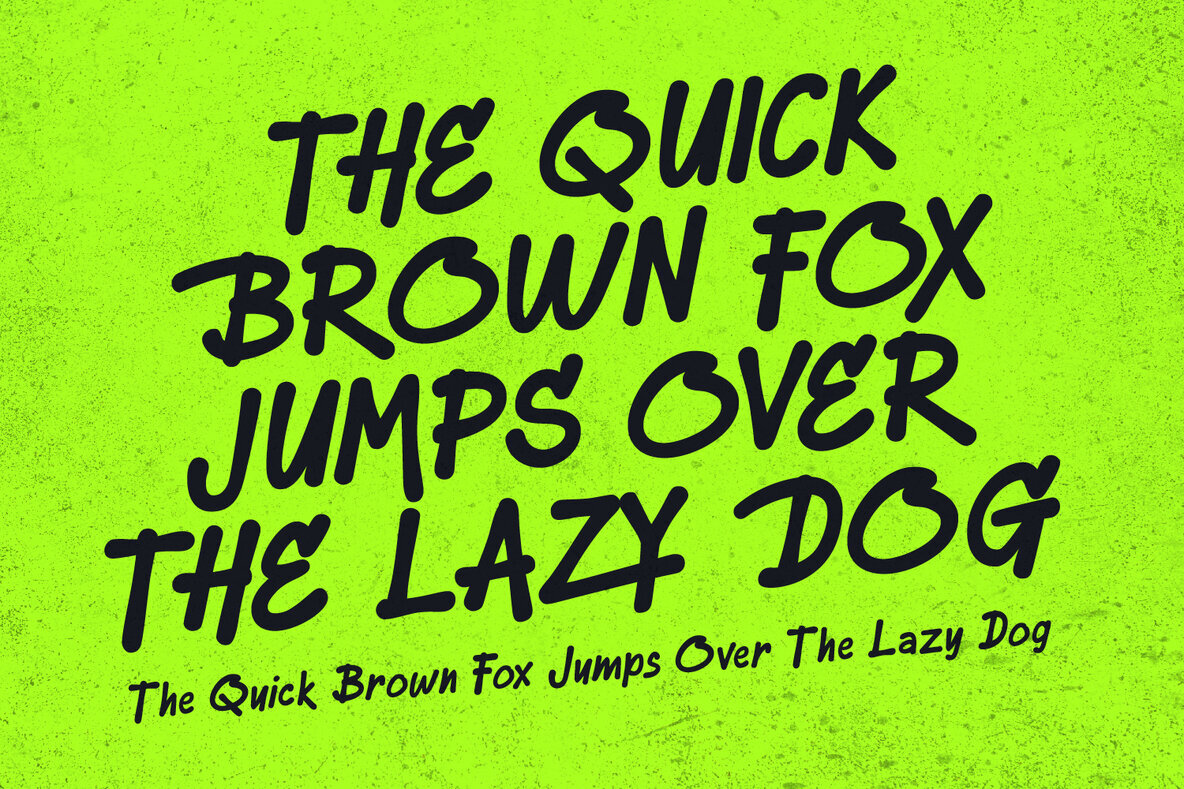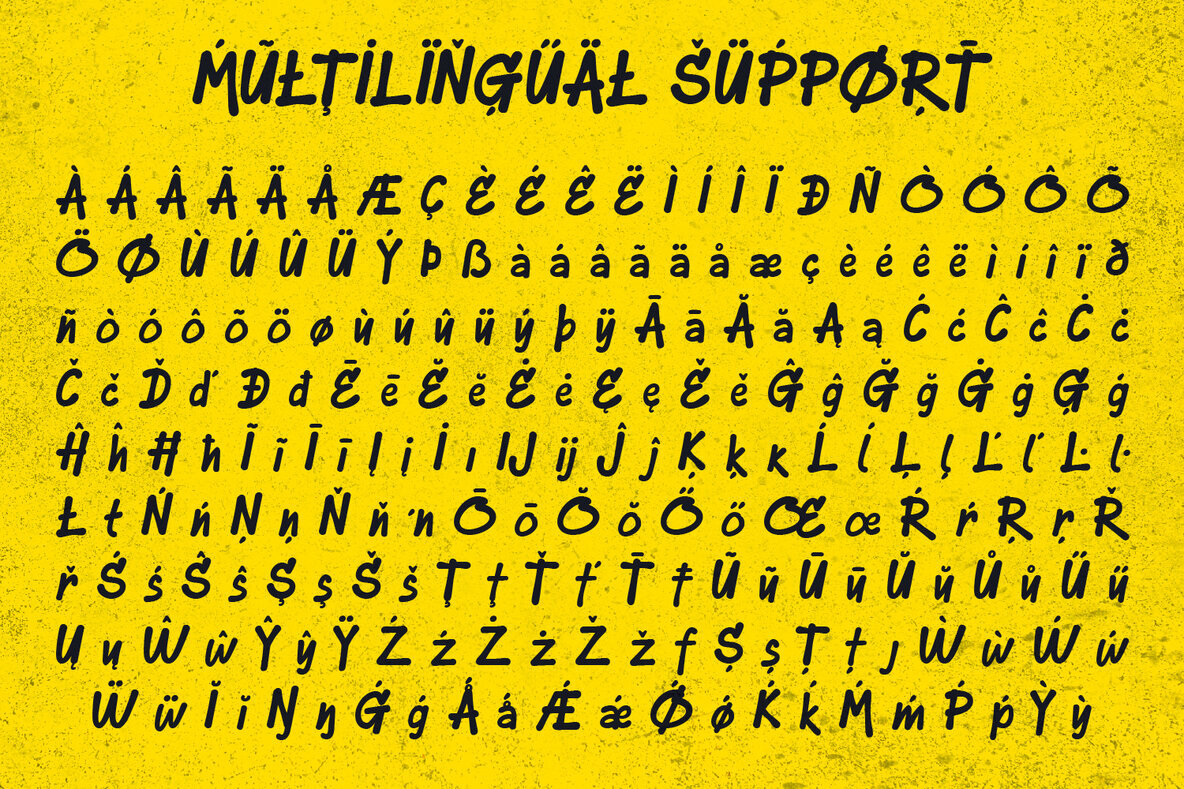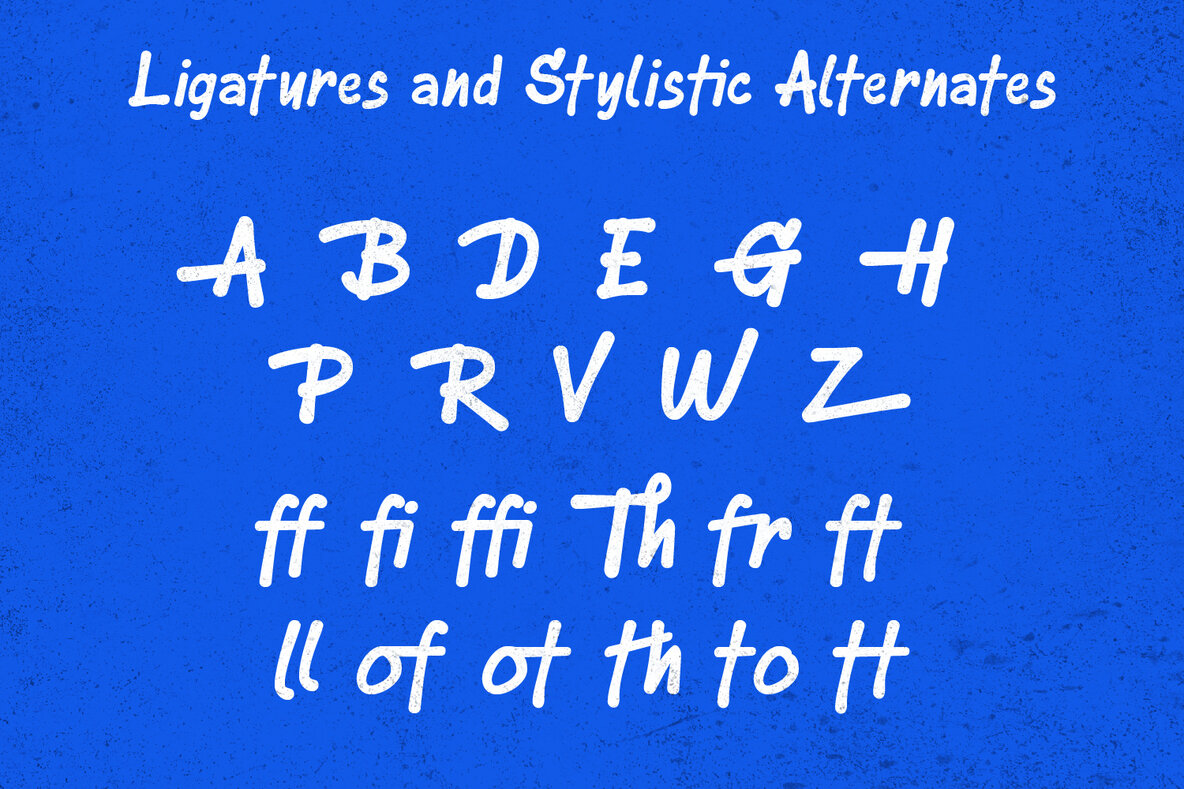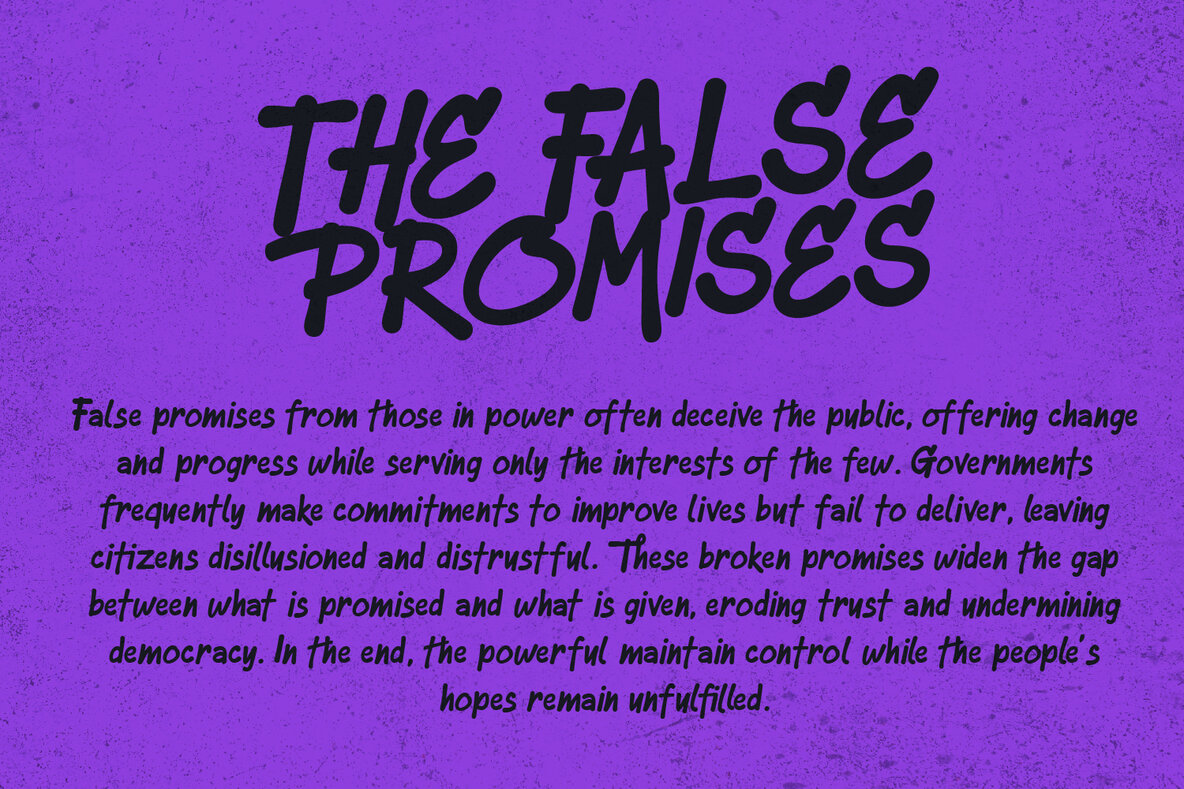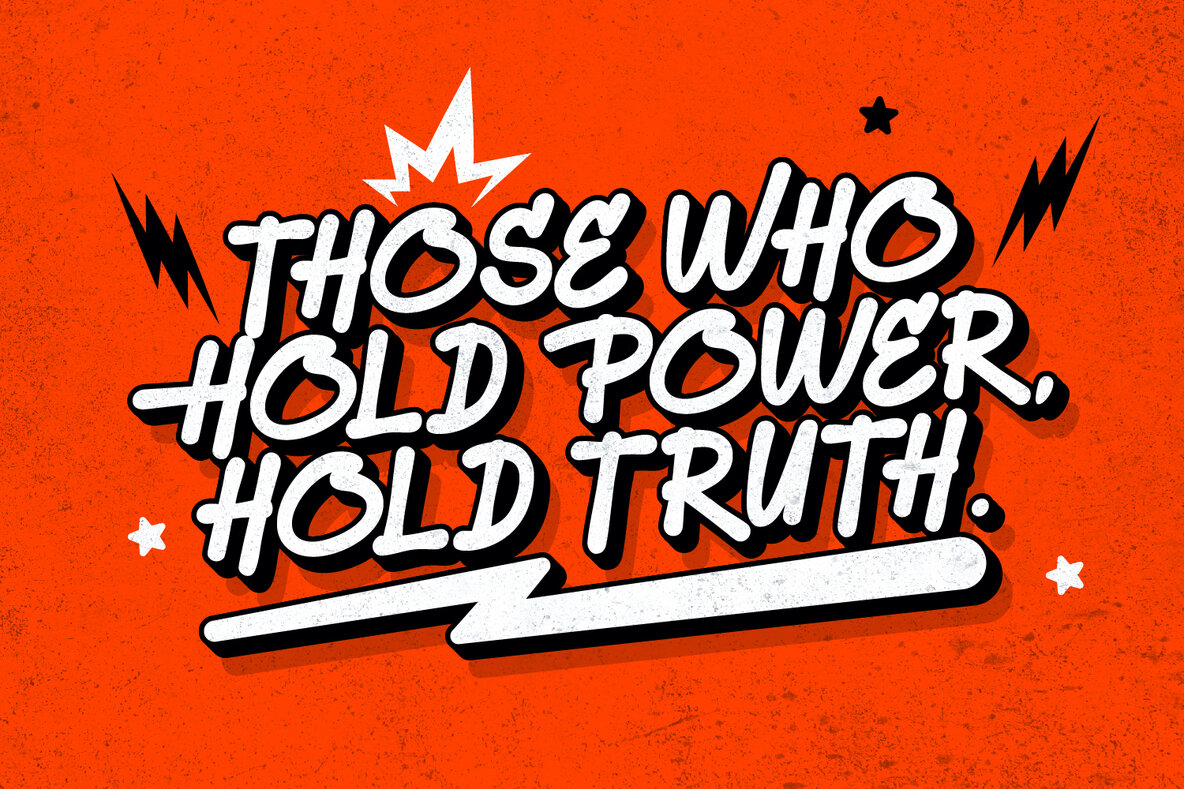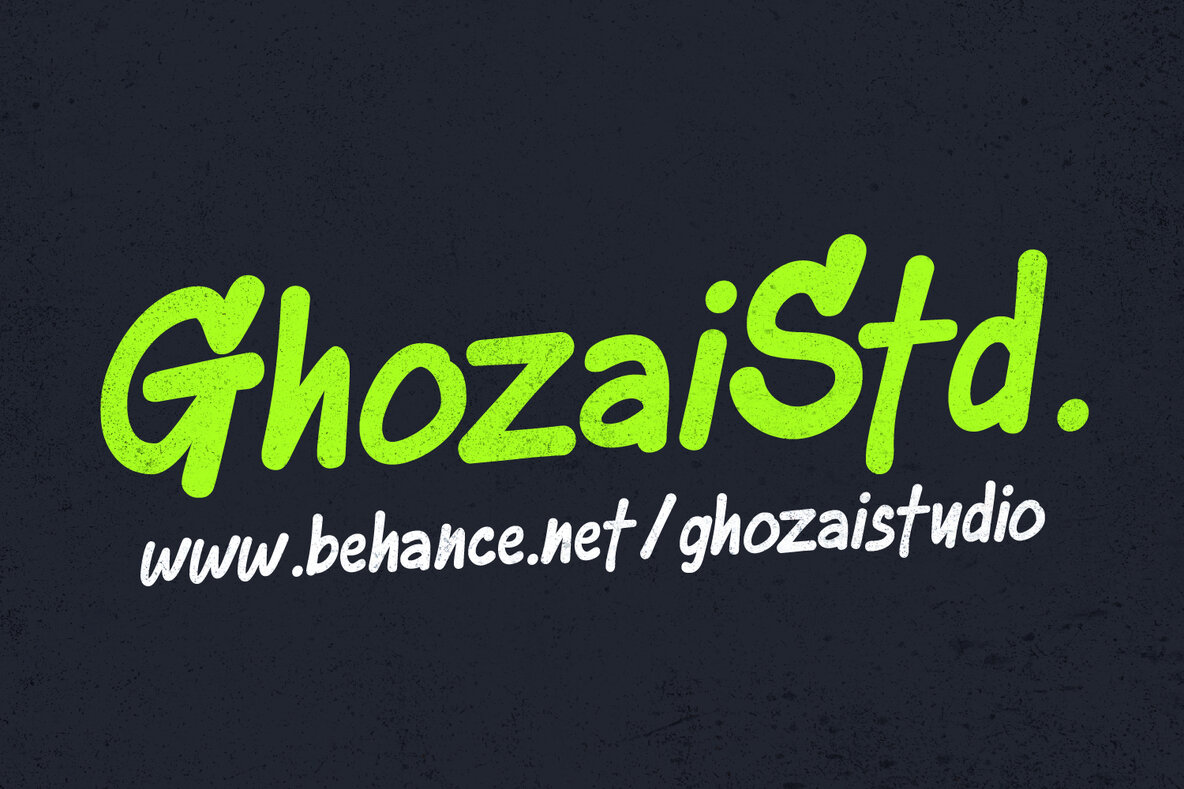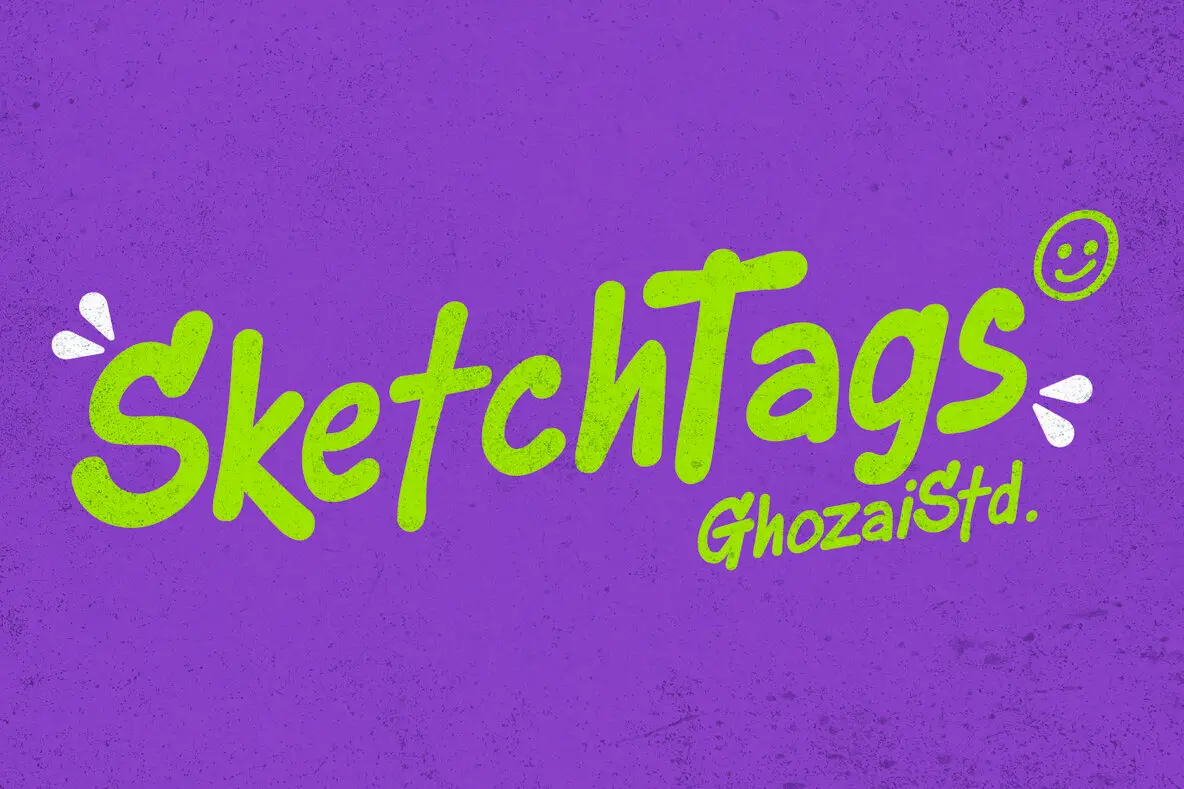
Sketch Tags Font
Sketch Tags Regular
Sketch Tags Outline
Sketch Tags is a dynamic, graffiti-inspired font with an edgy, italicized, modern design similar to bold round marker pen strokes. Its bold and energetic style is perfect for large display text that demands attention. Featuring a variety of ligatures and alternate stylistic sets, this font creates a natural, handwritten look that adds personality and flair to your designs. Ideal for projects in the sports, street, hip hop, and urban themes, Sketch Tags is the perfect choice when you need a bold and authentic handwritten aesthetic. The versatility of this font makes it suitable for both digital and print media. Whether you're designing posters, logos, or social media graphics, Sketch Tags will give your project an unmistakable, eye-catching edge.